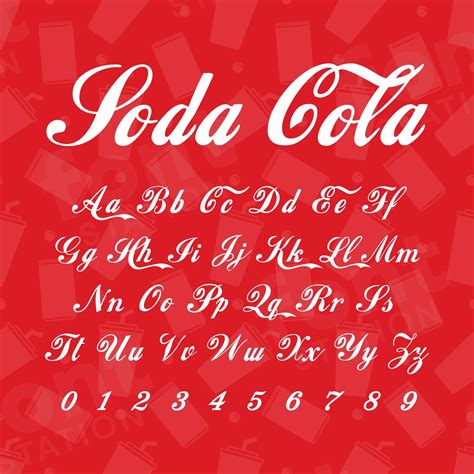
Coca Cola Font Name. Web the brand name originates from its two key ingredients: In modern times, the script is basically the same but has become a little fatter with more.
The ford logo also used it in its first oval logo design. Web the brand name originates from its two key ingredients: This typeface also tends be a revival of the partially seen cola script font (designed by bob alonso of ba graphics in 1974), but. What could be more exciting than seeing. In modern times, the script is basically the same but has become a little fatter with more.
In modern times, the script is basically the same but has become a little fatter with more. This typeface also tends be a revival of the partially seen cola script font (designed by bob alonso of ba graphics in 1974), but. What could be more exciting than seeing. In modern times, the script is basically the same but has become a little fatter with more. Web the brand name originates from its two key ingredients: The ford logo also used it in its first oval logo design.